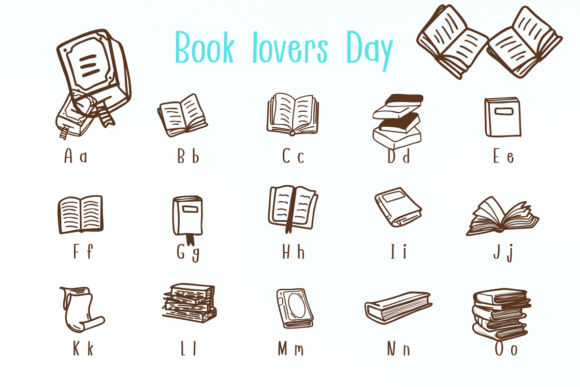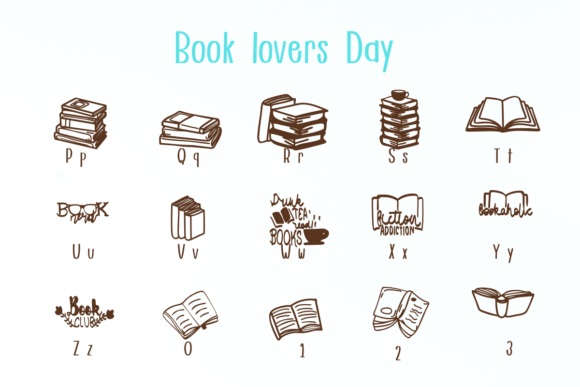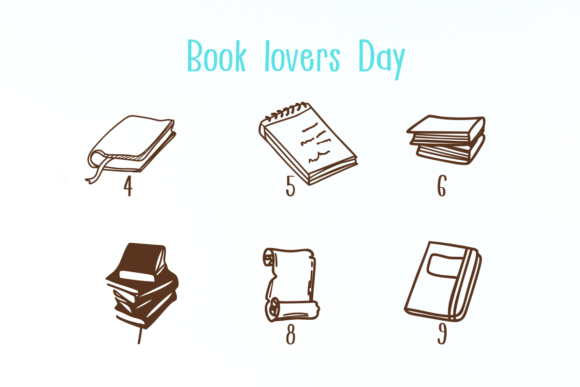
Book Lovers Day Font
Book Lovers Day is a fun dingbats font. It can enhance your creative projects such as wedding invitations, DIY, crafts, decorations, logos, and many other creative ideas.